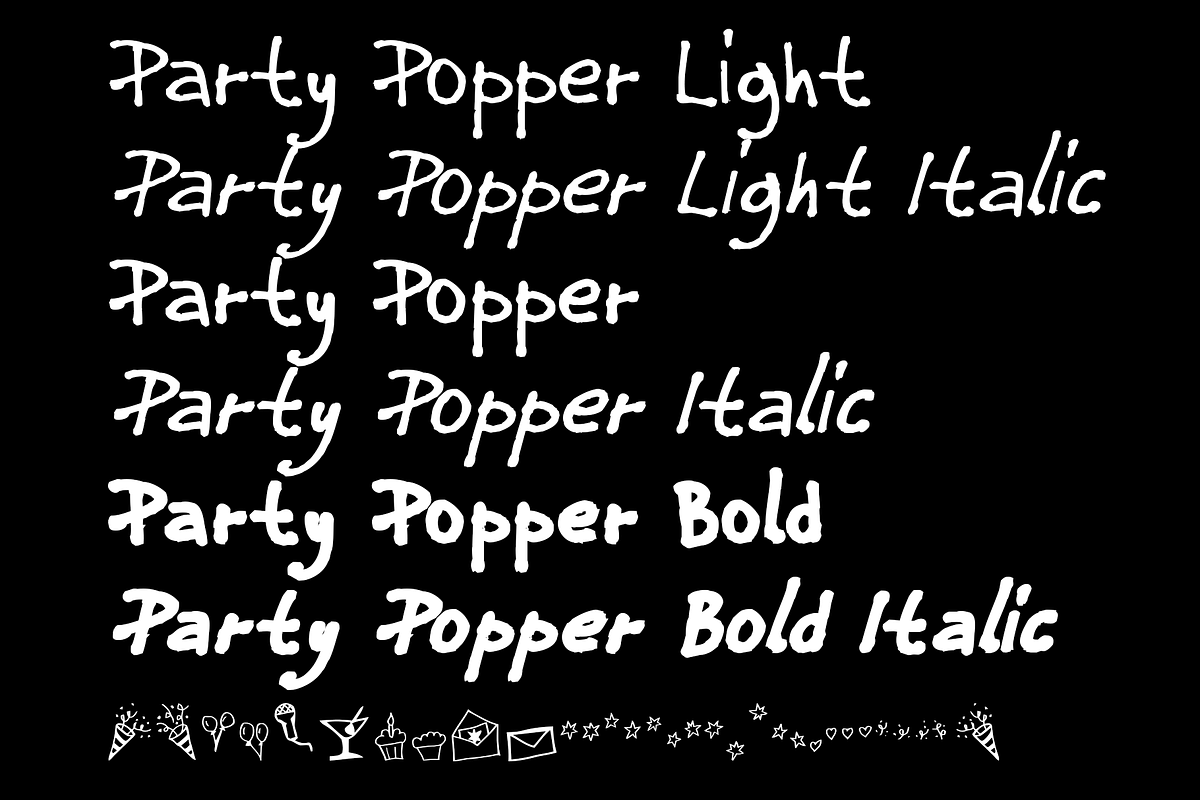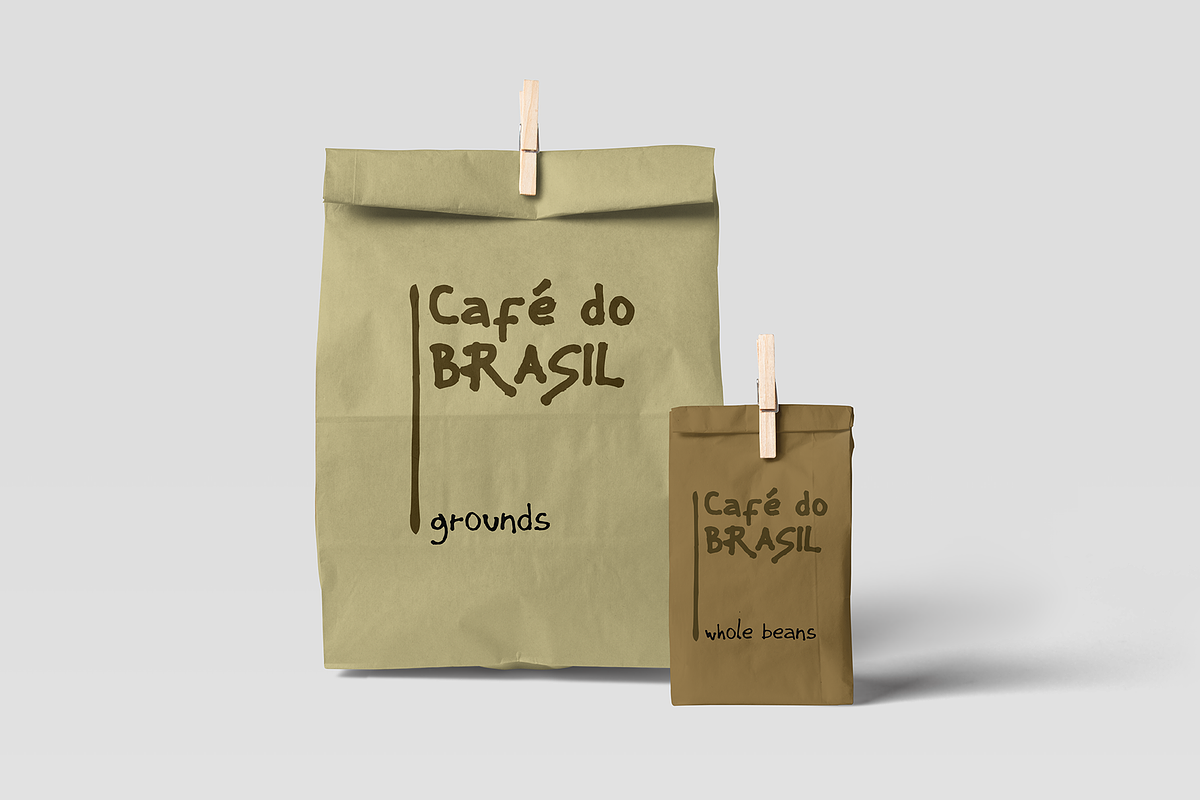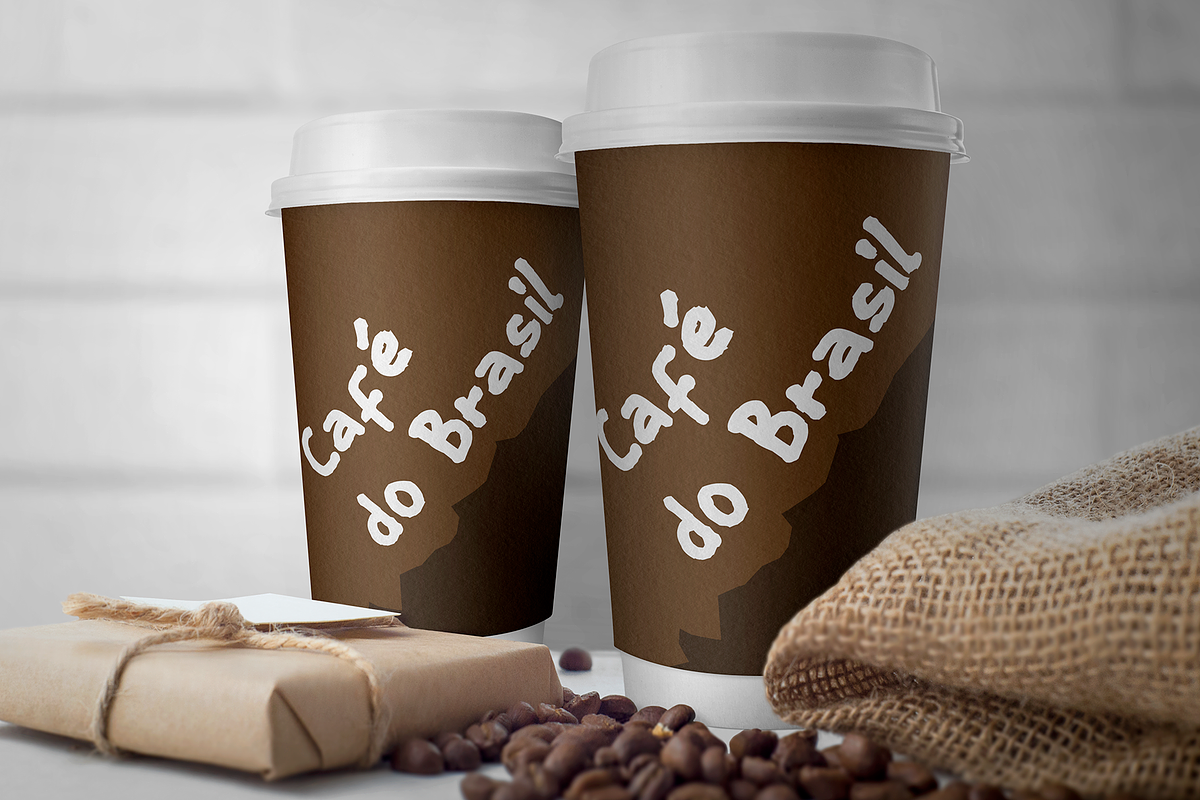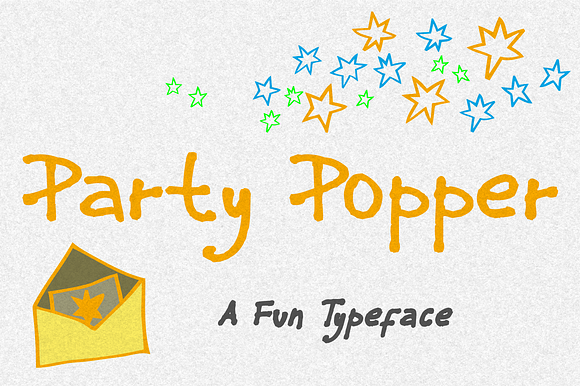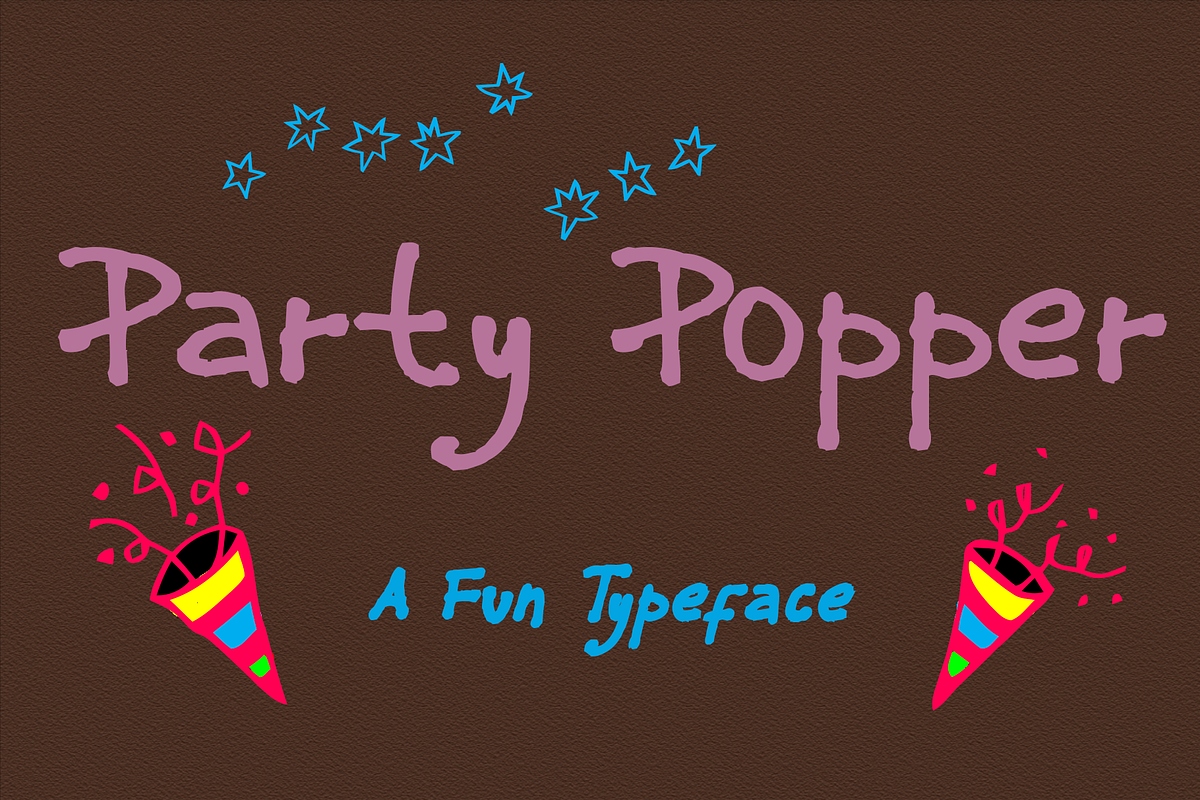
Party Popper - A Fun Typeface
Party Popper is a fun font!
Use it for fun invitations! Good fo fun party decorations!
Also good for serious uses.
Regular, light and bold